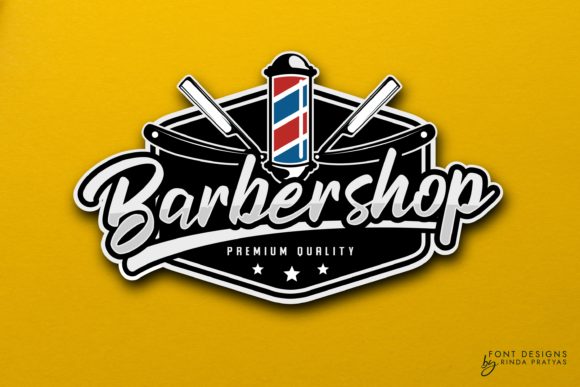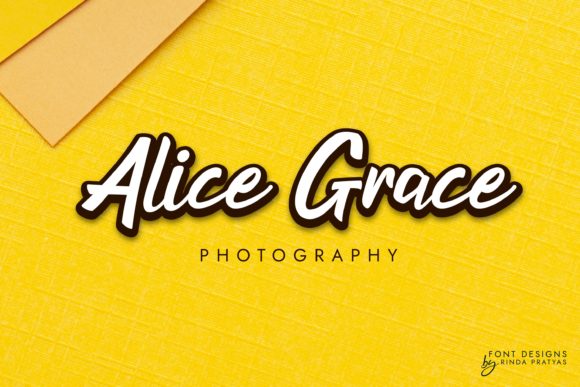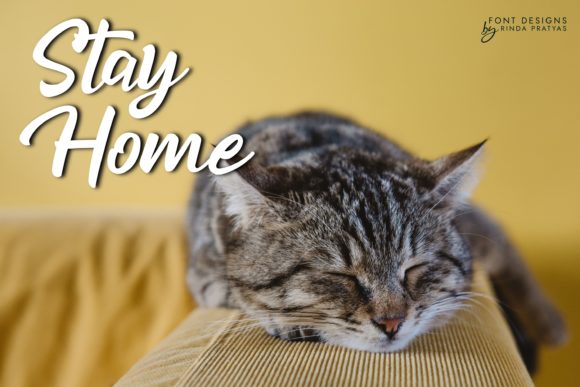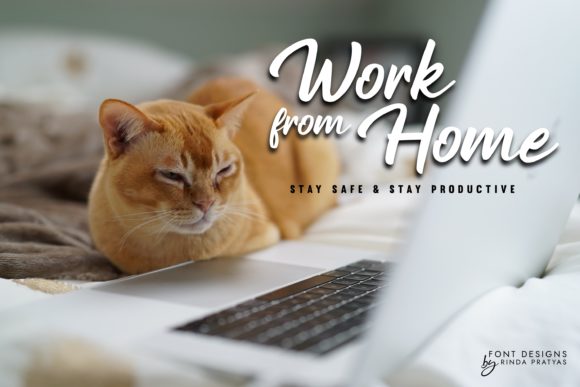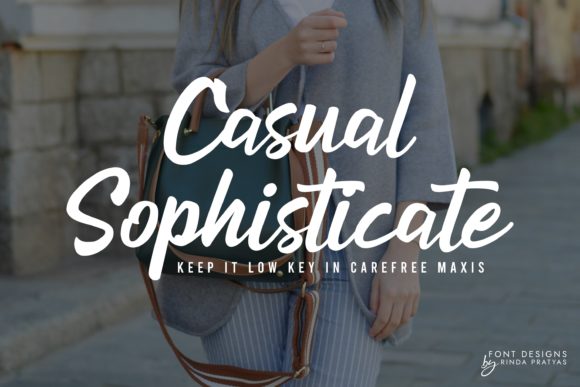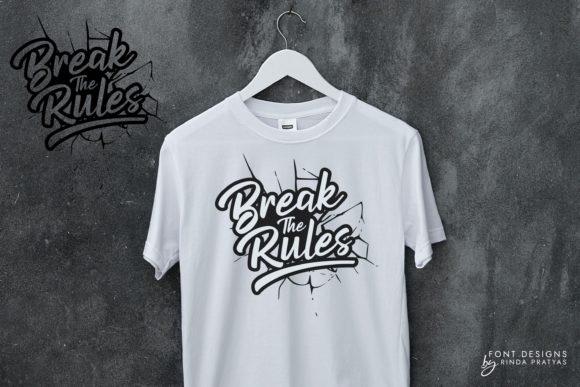
Introducing Bonjour Font: Elevate Your Designs with Elegance
Are you tired of using the same old fonts in your designs? Look no further than Bonjour Font, a stunning pairing of a brush pen and pencil that will take your creations to the next level. This unique font combination is perfect for designers and crafters looking to add a touch of elegance and sophistication to their work.
The Power of Bonjour Font
Bonjour Font is more than just a font – it’s a game-changer. With its beautiful, hand-crafted design, it’s perfect for a wide range of projects, from branding and headings to wedding designs, invitations, signatures, logos, labels, and more. Whether you’re working on a personal project or a client’s, Bonjour Font is sure to impress.
What Makes Bonjour Font So Special?
So, what sets Bonjour Font apart from other fonts on the market? Here are just a few reasons why designers and crafters are falling in love with this stunning font:
• Unique pairing of brush pen and pencil: The combination of a brush pen and pencil gives Bonjour Font a distinctive, hand-crafted look that’s both elegant and sophisticated.
• Versatile: Bonjour Font is perfect for a wide range of design projects, from formal to informal, and can be used in a variety of contexts, from digital to print.
• High-quality design: Each letter and character in Bonjour Font has been carefully crafted to ensure a high level of quality and attention to detail.
How to Use Bonjour Font in Your Designs
• Pair it with other fonts: Bonjour Font pairs beautifully with other fonts, so don’t be afraid to experiment and find the perfect combination for your design.
• Use it for headings and titles: Bonjour Font is perfect for headings and titles, where its elegant design can really shine.
• Add a personal touch: Use Bonjour Font to add a personal touch to your designs, whether it’s a wedding invitation or a business logo.
Bonjour Font for Designers and Crafters
Bonjour Font is a must-have for designers and crafters looking to elevate their work to the next level. Whether you’re working on a personal project or a client’s, this stunning font is sure to impress. Here are just a few ways designers and crafters can use Bonjour Font:
• Branding: Use Bonjour Font to create beautiful, elegant branding for your clients or your own business.
• Wedding designs: Bonjour Font is perfect for wedding invitations, save-the-dates, and other wedding-related designs.
• Invitations: Use Bonjour Font to create stunning invitations for parties, events, and other special occasions.
• Signatures and logos: Bonjour Font is a great choice for signatures and logos, where its elegant design can really shine.